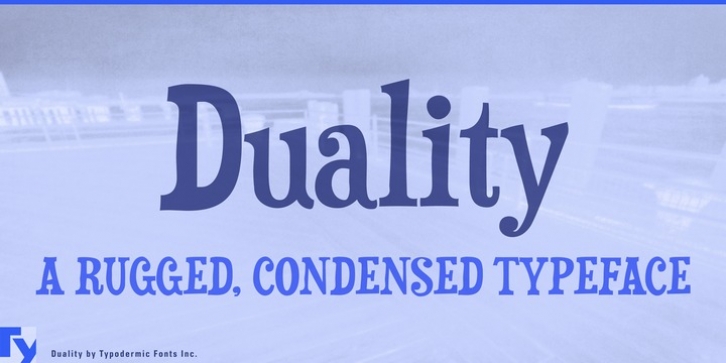
Duality was designed by Ray Larabie and published by Typodermic. Duality contains 3 styles and family package options.
Duality is a rugged, condensed display font with class based kerning, math symbols, fractions and numeric ordinals.
Duality·
Duality Sand·